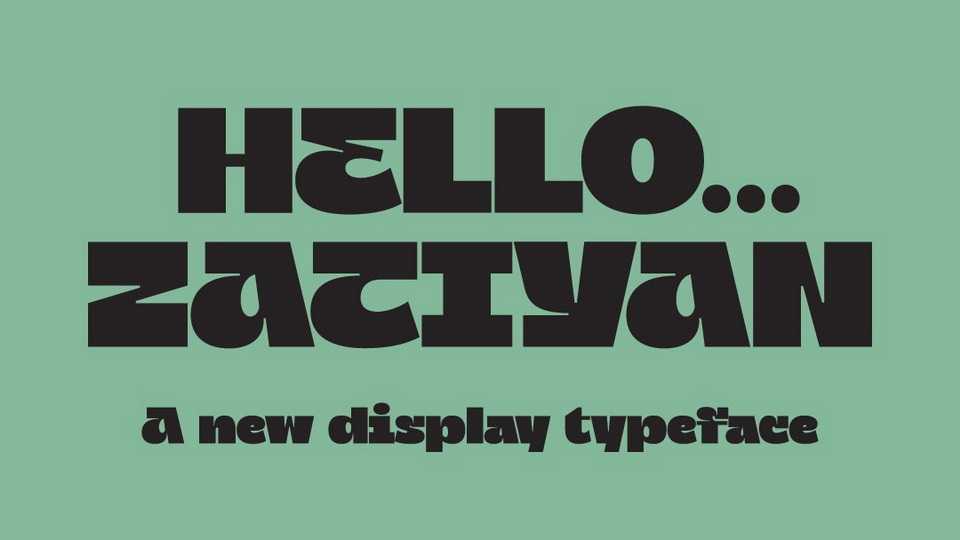
Download Zatiyan font, a bold, modern mixed typeface with some classic letter styles. Zatiyan typeface great for all aspects of graphic design from logos to layouts.
Designer: Zarma Type Foundry